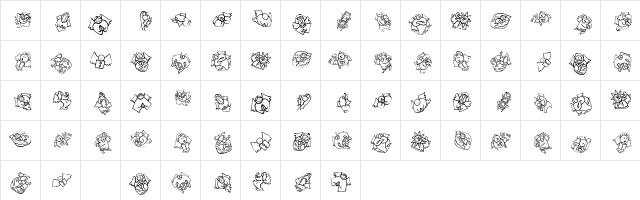
HallelujaEngeland Medium
Design Context for HallelujaEngeland Typeface
HallelujaEngeland is a composed and adaptable typeface that performs quietly and consistently across a wide range of design contexts.